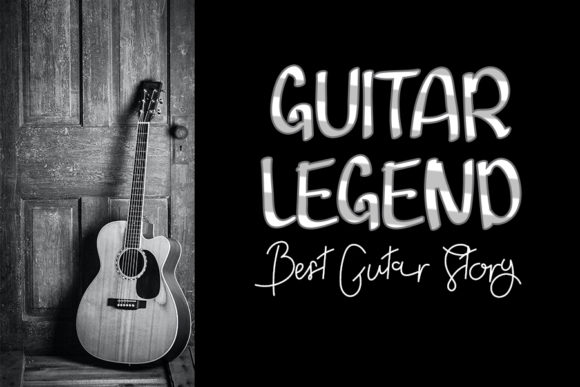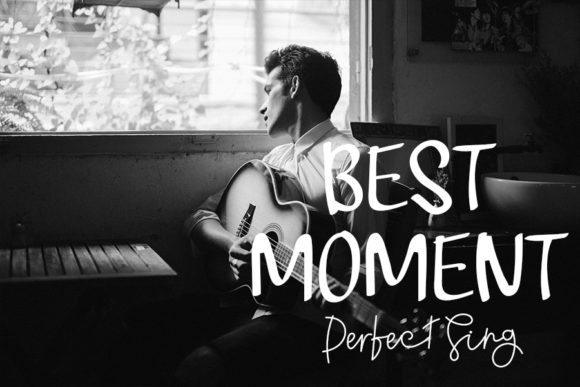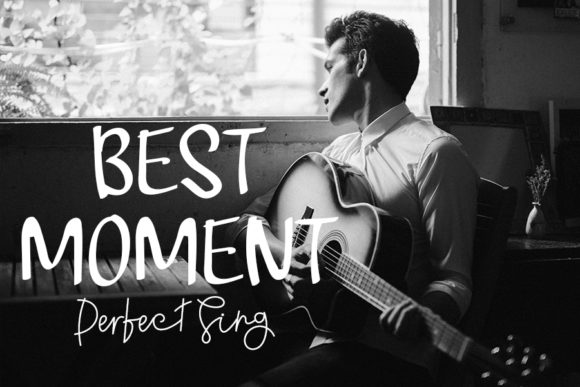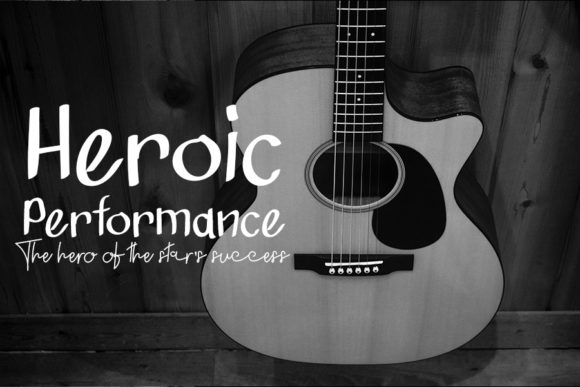
Unlock the Charm of Handwritten Typography
Have you ever stumbled upon a beautiful, handwritten note that instantly sparks creativity? Maybe it was a love letter, a birthday card, or a simple “thank you” note that touched your heart. Whatever it was, you can’t deny the magic of handwritten typography. It’s this very magic that the Casual Clasic Font captures, infusing your designs with a sense of personality and warmth.
Crafted to be simple yet unique, the Casual Clasic Font is the perfect addition to any design project. Whether you’re a seasoned designer or a creative enthusiast, this font is sure to inspire your imagination. Its versatility makes it an invaluable asset for designers looking to add a touch of personality to their work.
With the Casual Clasic Font, the possibilities are endless. From invitations and posters to social media graphics and branding materials, this font is the perfect companion for any creative endeavor.
Casual Classic Font Features
- Font Family: Casual Classic Font is a unique, hand-drawn script font that adds a touch of elegance to any design.
- Unique Characteristics: Features a distressed, vintage aesthetic with subtle imperfections, giving it a unique and charming feel.
Casual Clasic Font Review
First off, I want to say that I’m a big fan of the Casual Clasic Font✨. It’s a great choice for body text, and its relaxed feel makes it perfect for blogs, articles, and social media posts. The font is highly legible, even at smaller font sizes, which is a major plus in my book.
Here are some of the things that really stand out about this font:
- Easy to read: As I mentioned, the Casual Clasic Font is super legible, making it perfect for long blocks of text.
- Classic feel: Despite its casual vibe, the font still has a classic feel that works well for a wide range of applications.
- Works well in digital: The font is optimized for digital use, which means it looks great on screens and in print.
- Limited bold weight⚠️: The font’s bold weight is a bit lacking, which can make it harder to use for headings or emphasis.
- No italic⚠️: The font doesn’t have an italic version, which can be a problem for certain design applications.
Overall, I think the Casual Clasic Font is a great choice for designers who need a reliable, easy-to-read font for body text. Just be aware of its limitations, and you’ll be all set.
Casual Classic Font: A Practical Application Guide
Tips for Getting the Most Out of Casual Classic Font
Use Casual Classic Font for headings, titles, and short paragraphs to add a touch of elegance to your design.
Combine Casual Classic Font with other fonts to create a unique and visually appealing composition.
Experiment with different font sizes and styles to achieve the perfect balance in your design.
Casual Classic Font is ideal for:
Blog posts and articles
Marketing materials and brochures
Business cards and resumes
Any design project that requires a classic and elegant touch